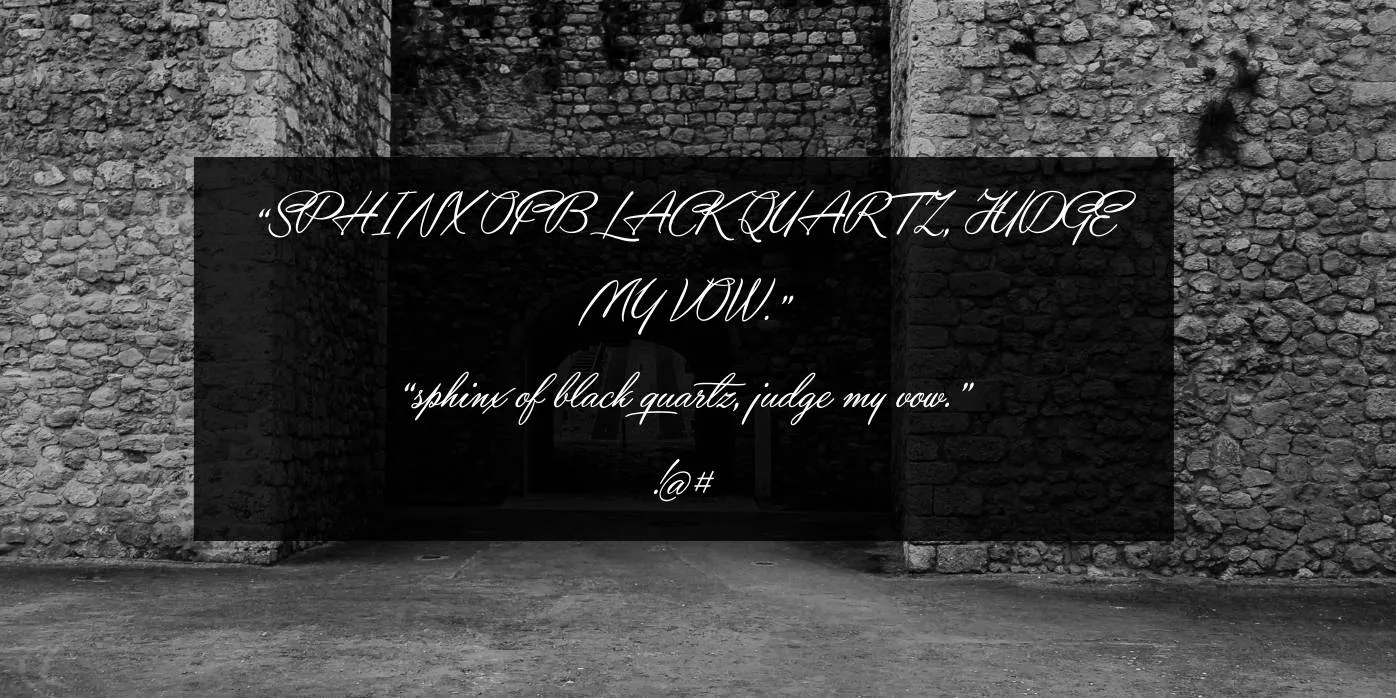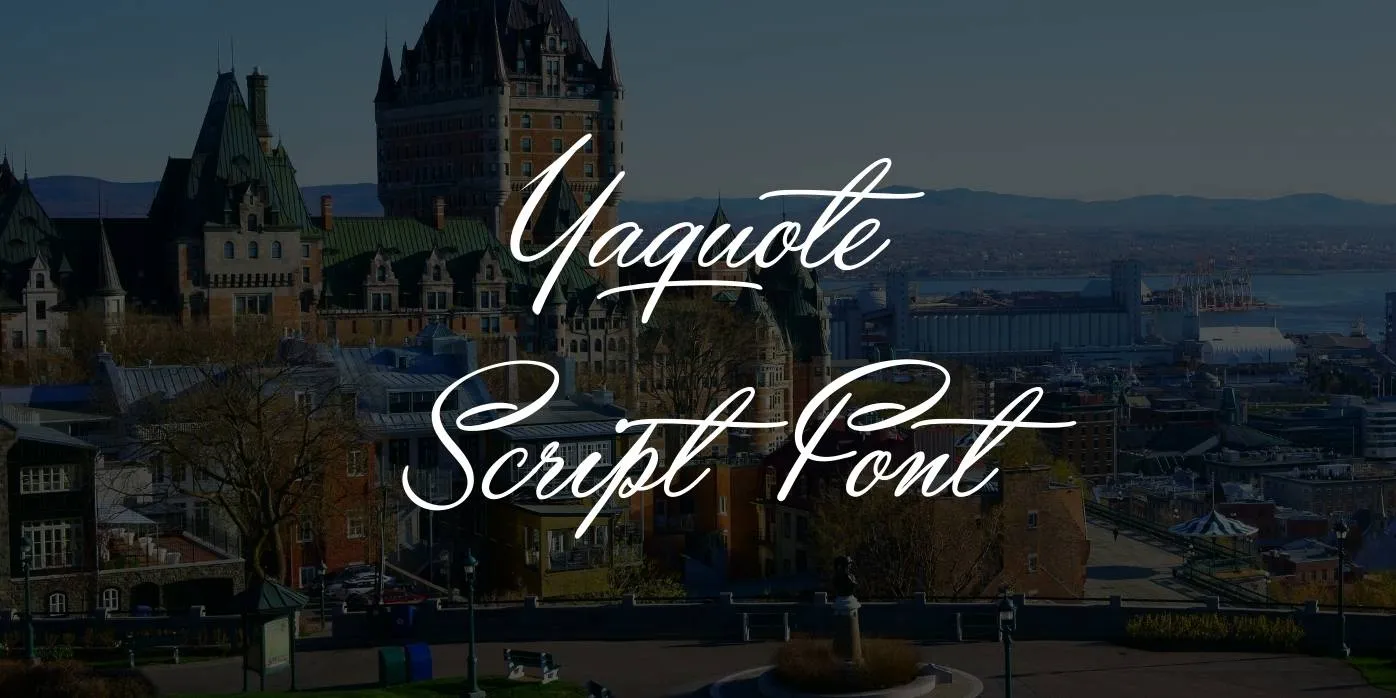
Yaquote Script Font
Today, we are consulting on a modern font family named Yaquote Script Font. It was developed and released by Mans Greback in 2014. It belongs to the calligraphy typeface genre and features a unique design with beautiful curves. It is available in two styles Yaquote Script and Yaquote Sans.
This font family is an excellent choice for web designing, logos, branding, and other creative projects. The Yaquote Sans style comes with 6 weights – Light, Regular, Medium, Bold, Italic, and Black. All styles come with matching italics. You can also use ondise font which is closest to this font family.
Yaquote Script Typeface supports a wide range of languages including Latin, Cyrillic, Greek, Vietnamese, and more. It also includes several OpenType features such as old-style figures, fractions, and ligatures. Its generator tool is best for many designs.